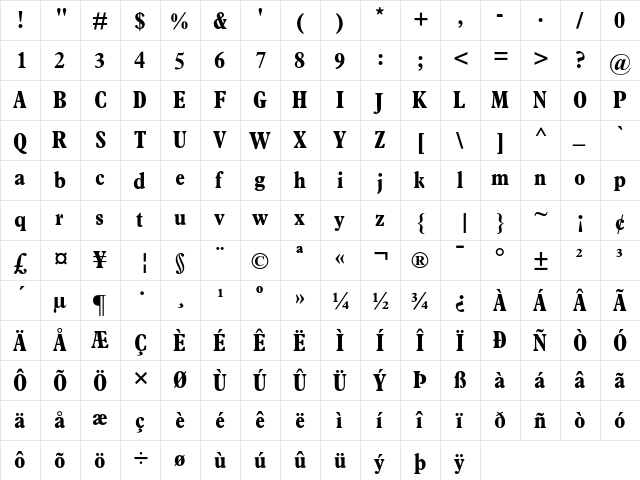
Plantin Bold Condensed
Design Context for Plantin Typeface
Plantin offers clean, dependable letterforms without strong stylistic allegiance, making it a practical choice for designers who need flexibility. The heavy weight commands attention and anchors typographic hierarchies. The condensed width makes it efficient for tight spaces without sacrificing legibility.